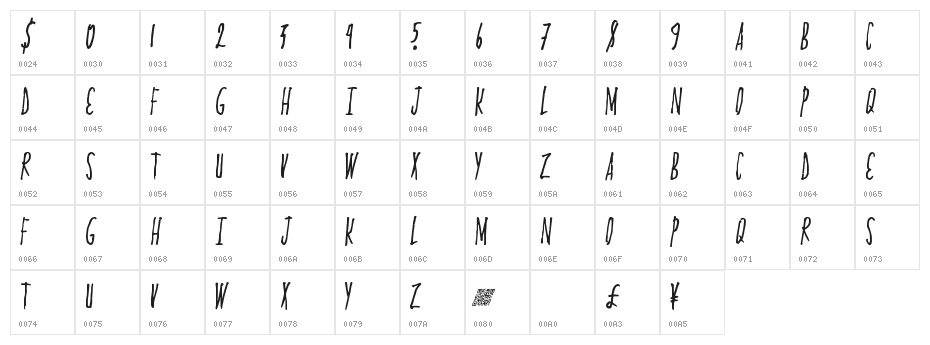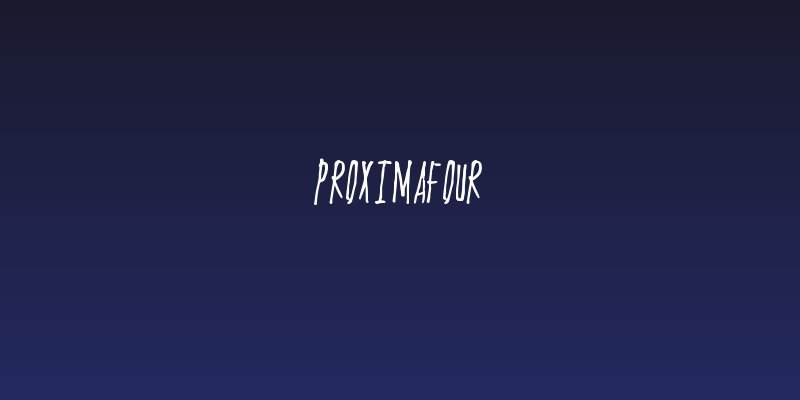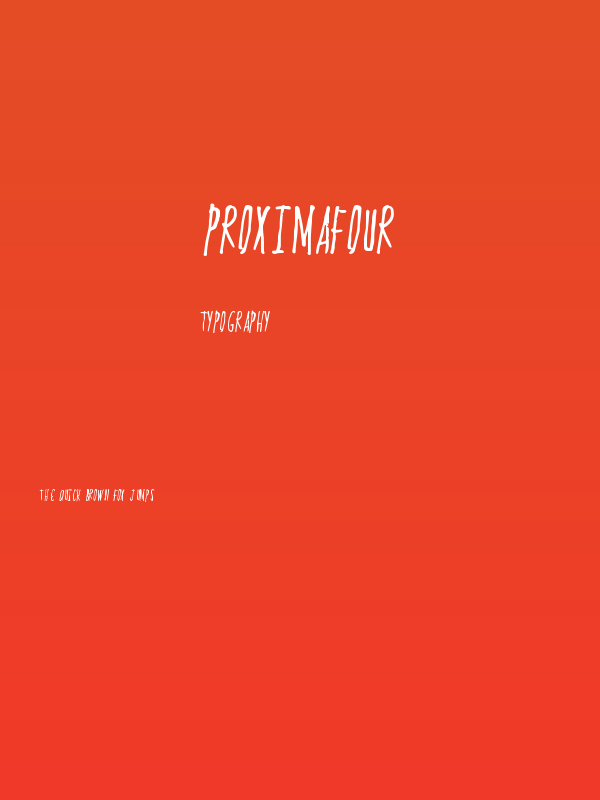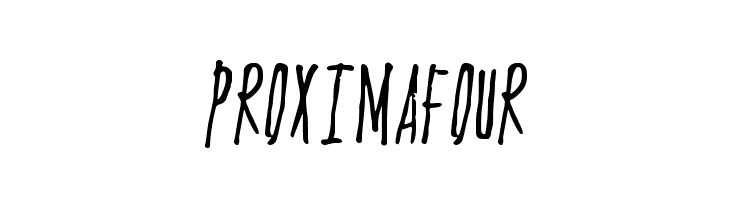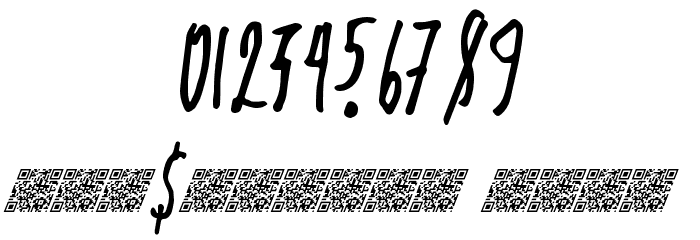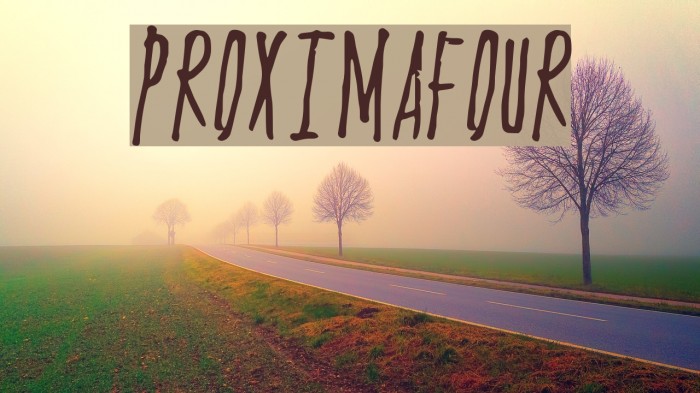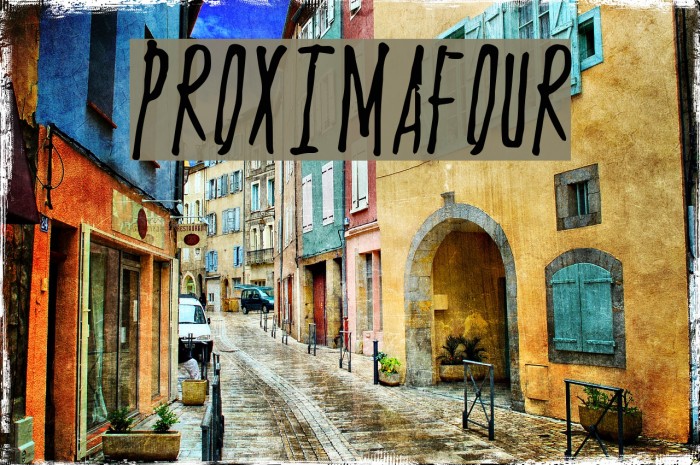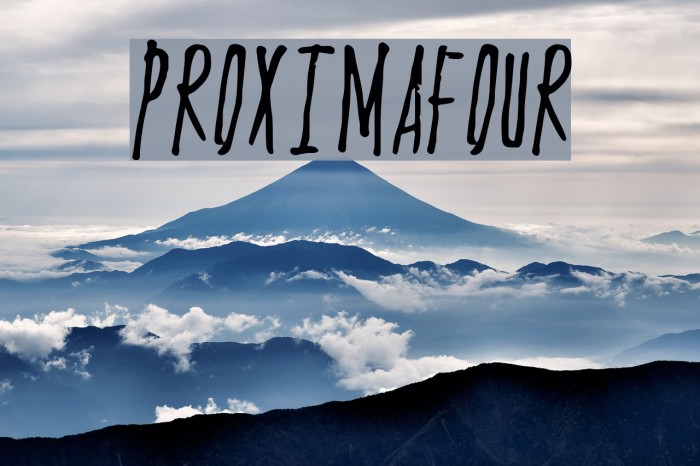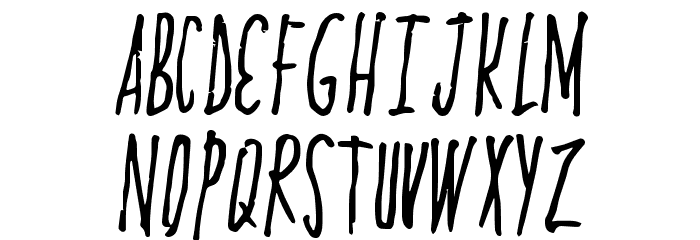
ProximaFour Font
ProximaFour Description
This font features a handwritten style with elongated, slightly irregular strokes that give it a casual and dynamic appearance. The letters are tall and narrow, with a playful yet sophisticated flair. The uppercase and lowercase characters maintain a consistent style, with a slight slant that adds to the informal feel. The numbers are similarly styled, maintaining the overall aesthetic. Special characters are included, matching the font's unique and artistic vibe. This font is perfect for projects that require a personal touch or a creative edge.
| Overall Style | Casual, Artistic |
| Proposed Projects | Ideal for creative projects such as invitations, greeting cards, posters, and branding that require a personal and artistic touch. |